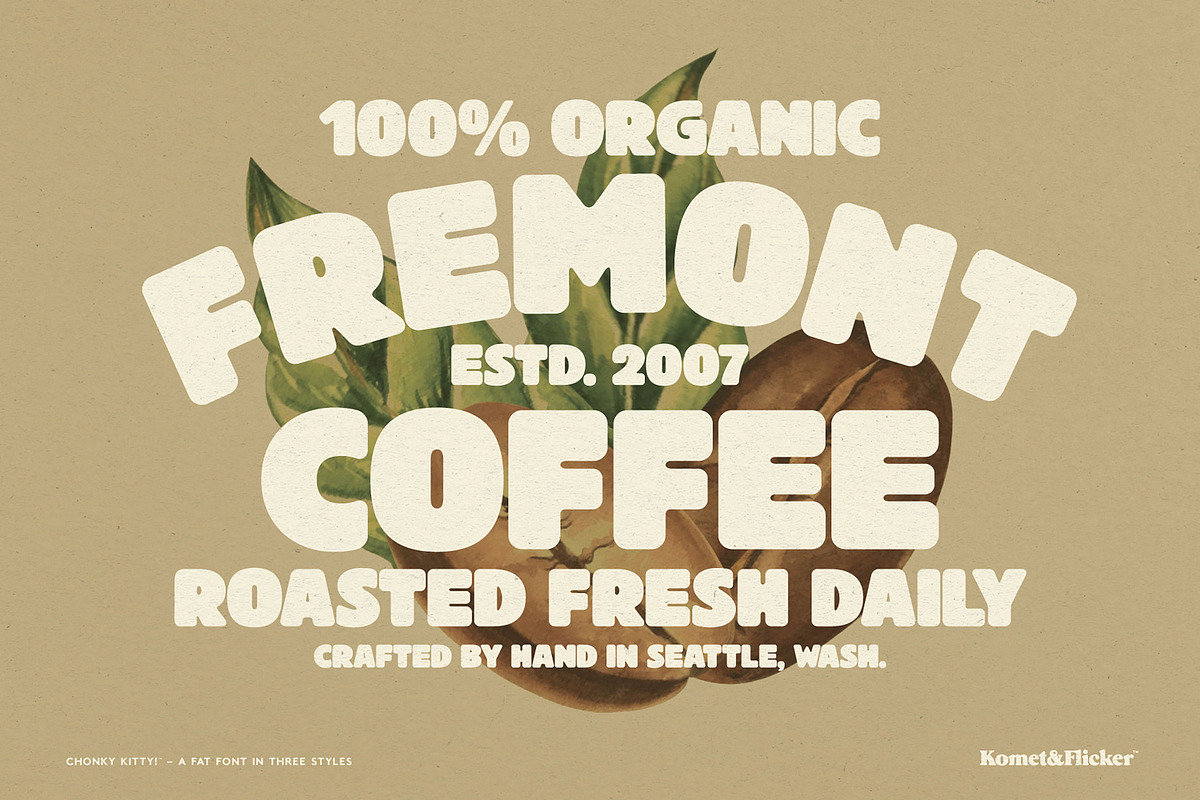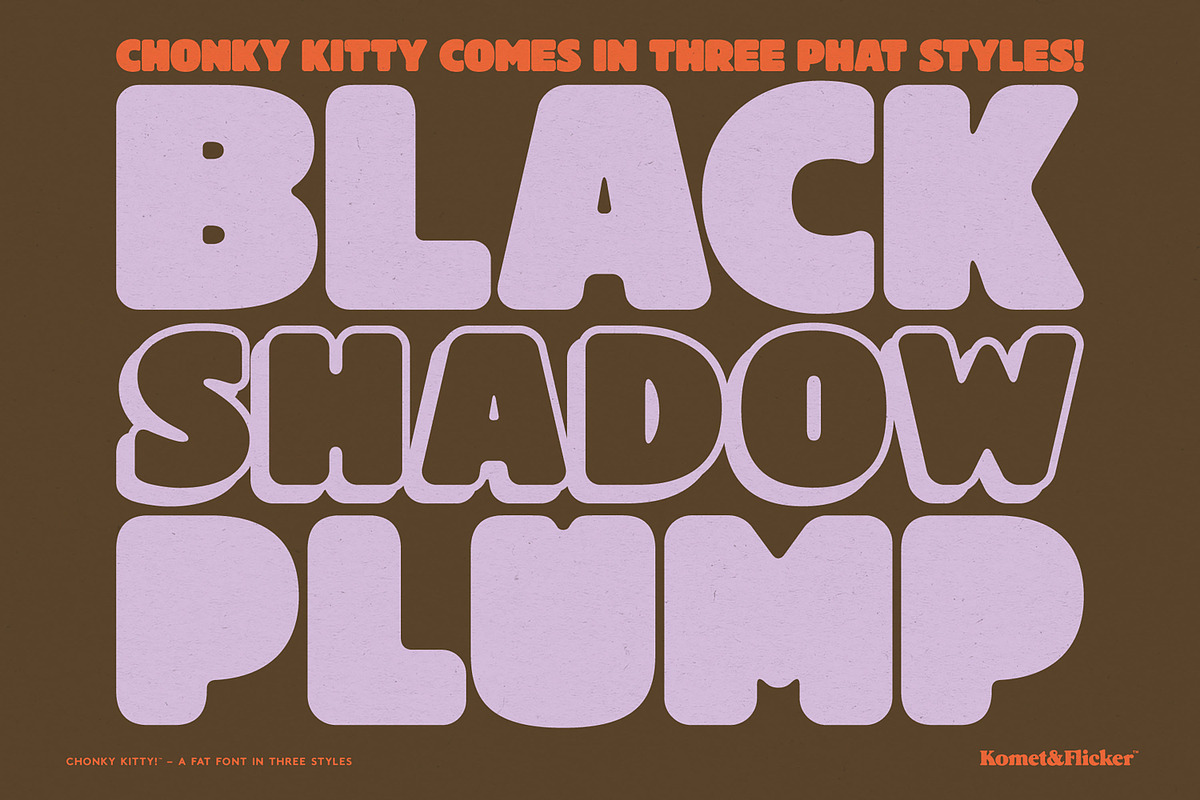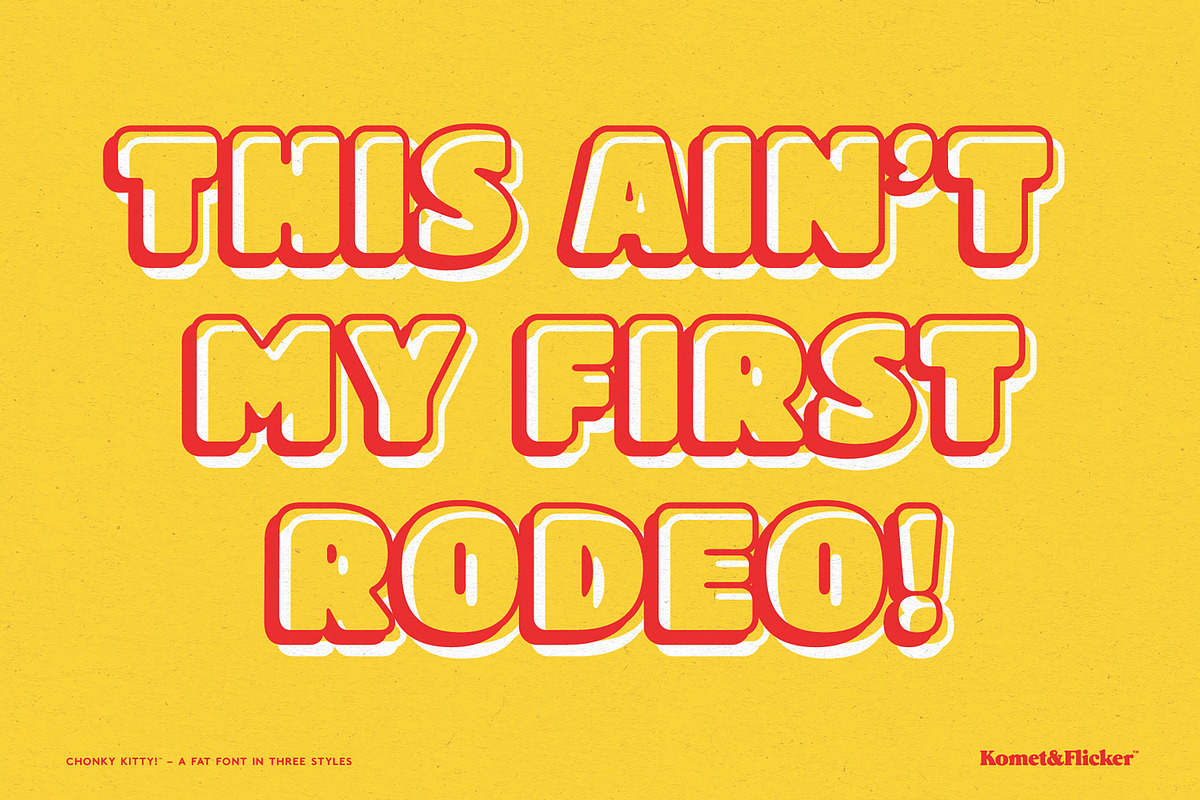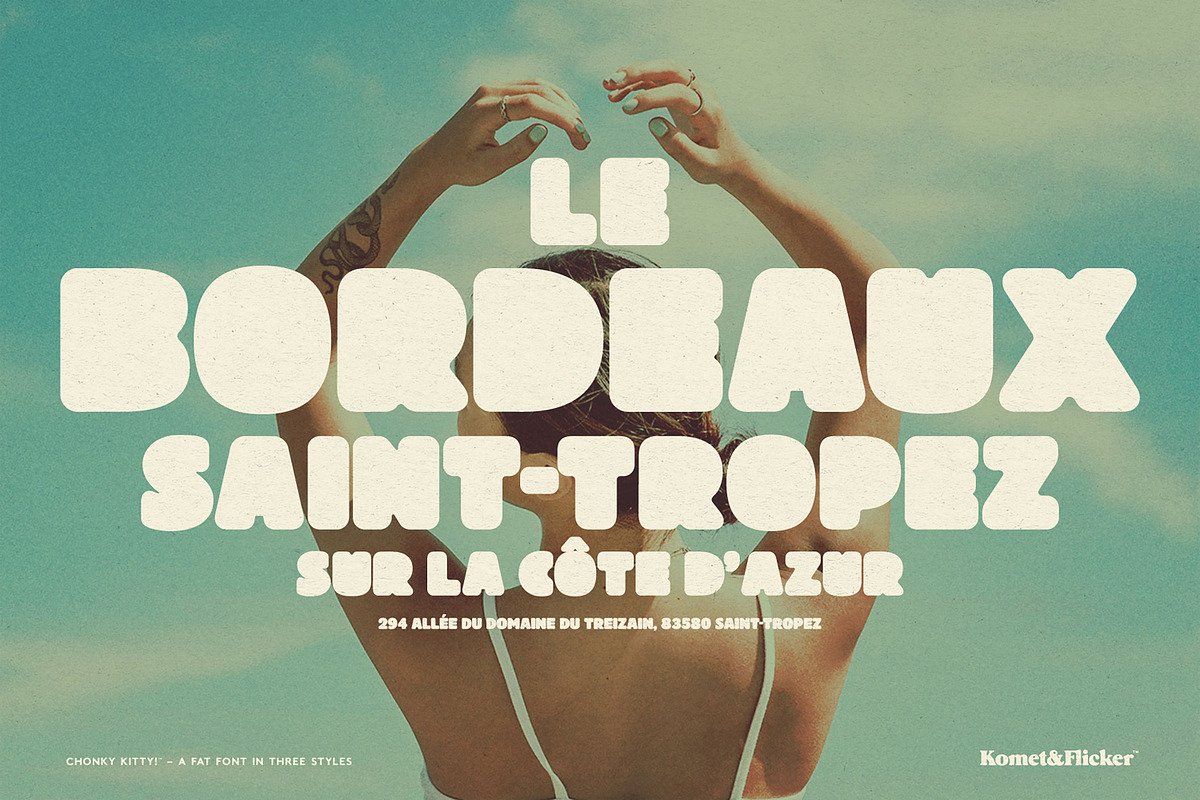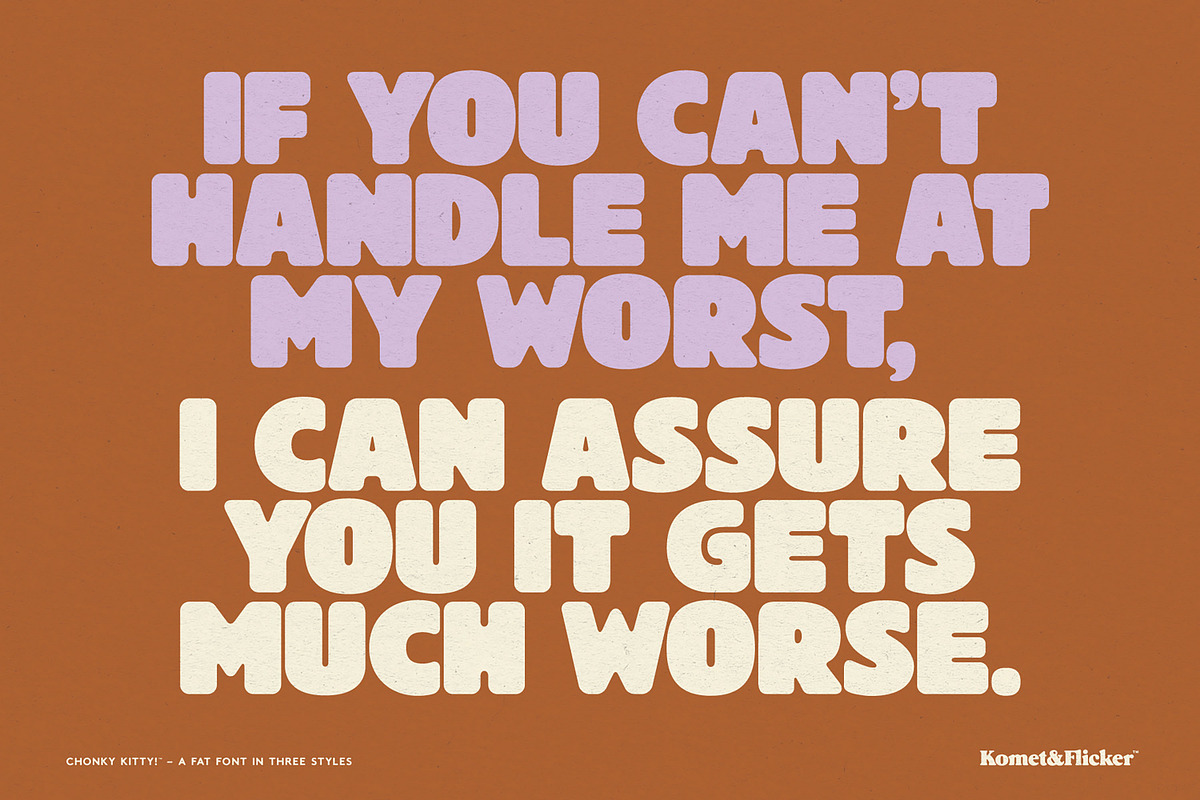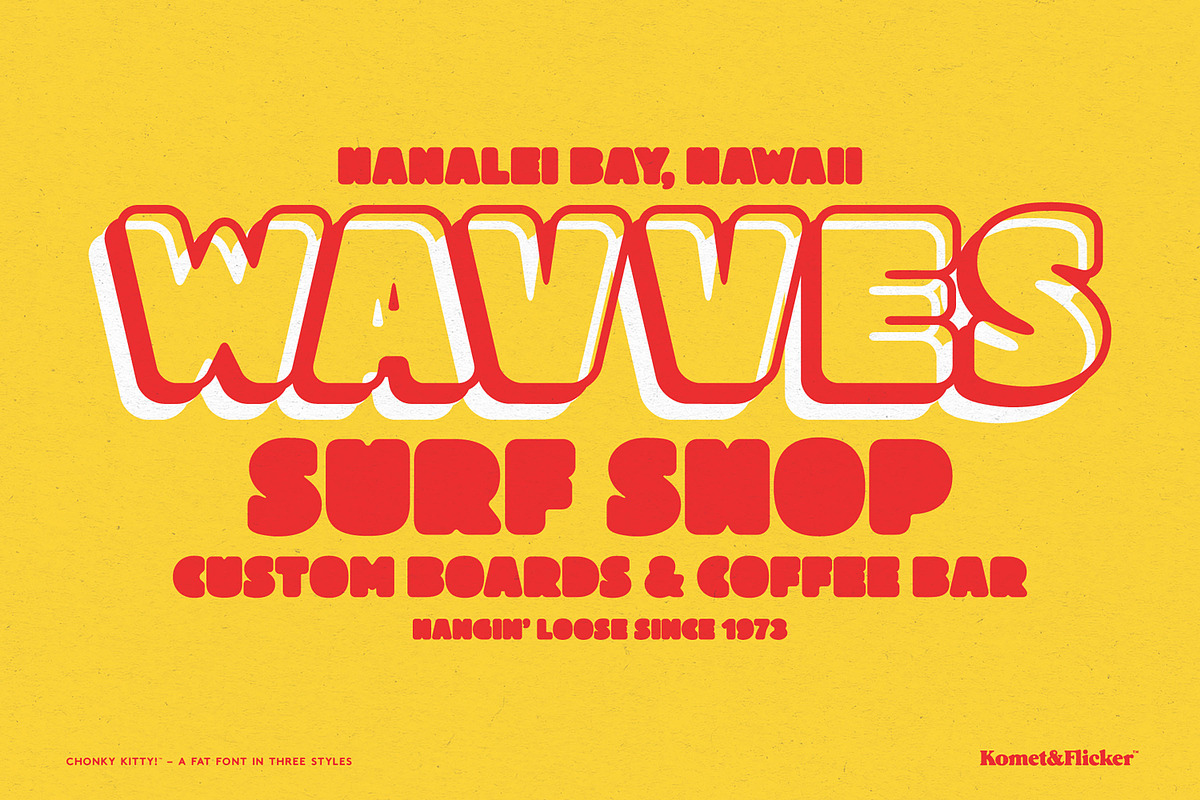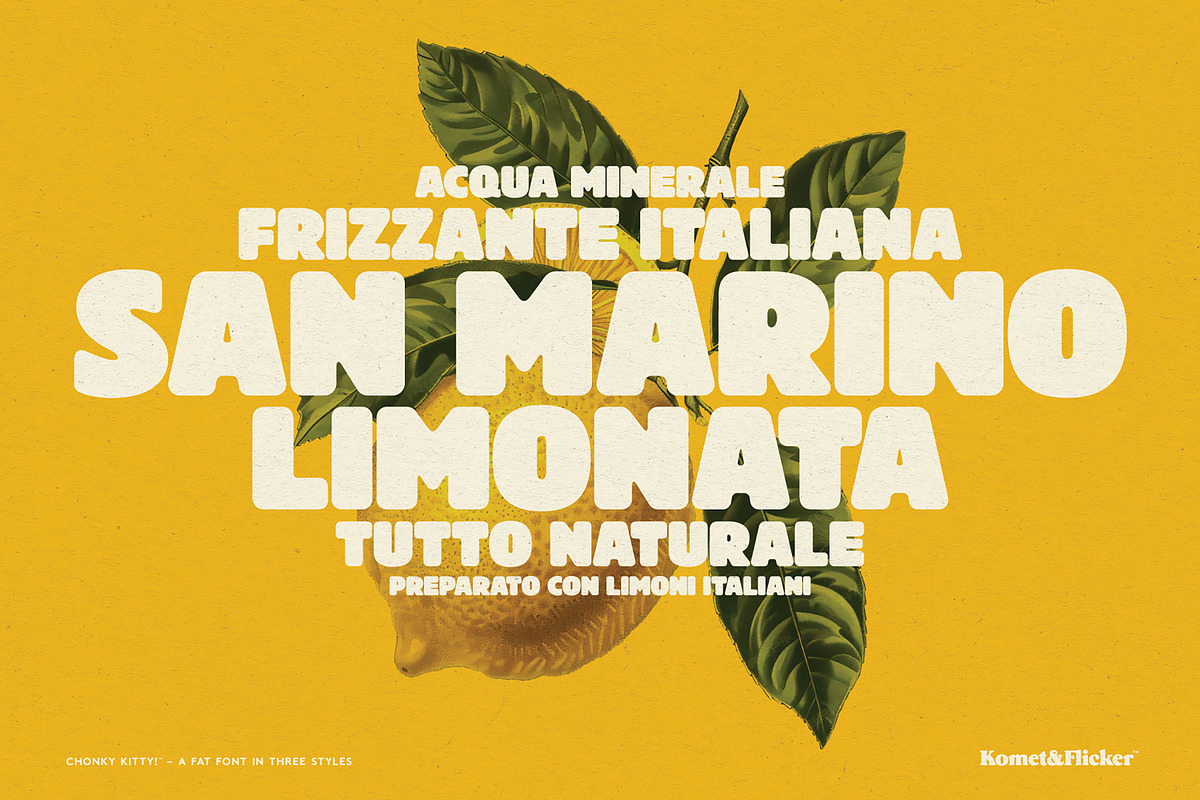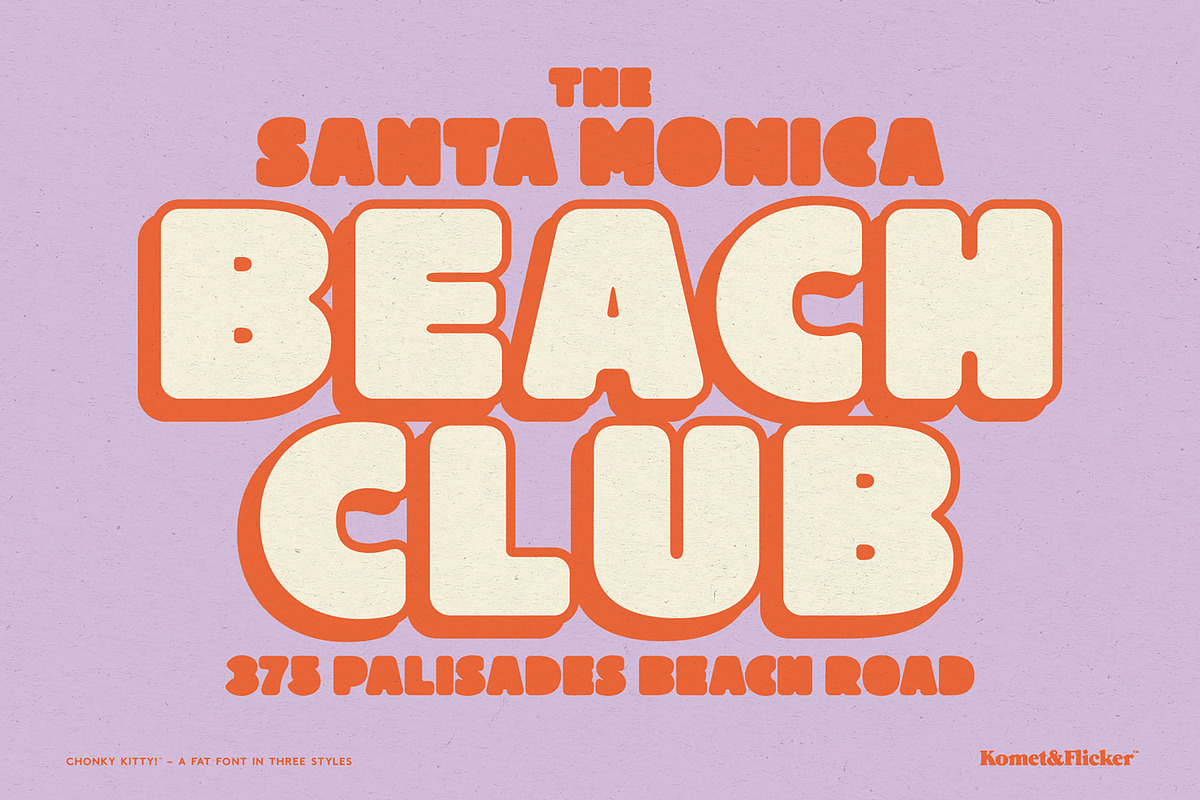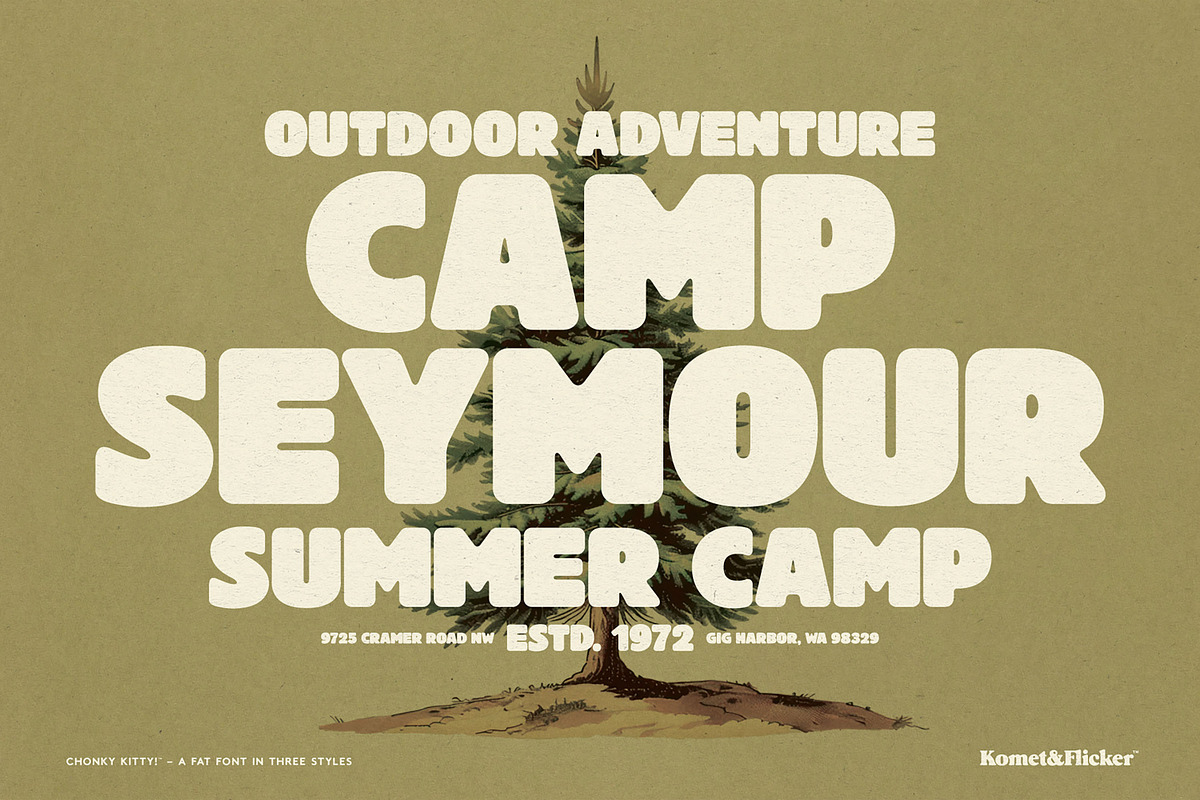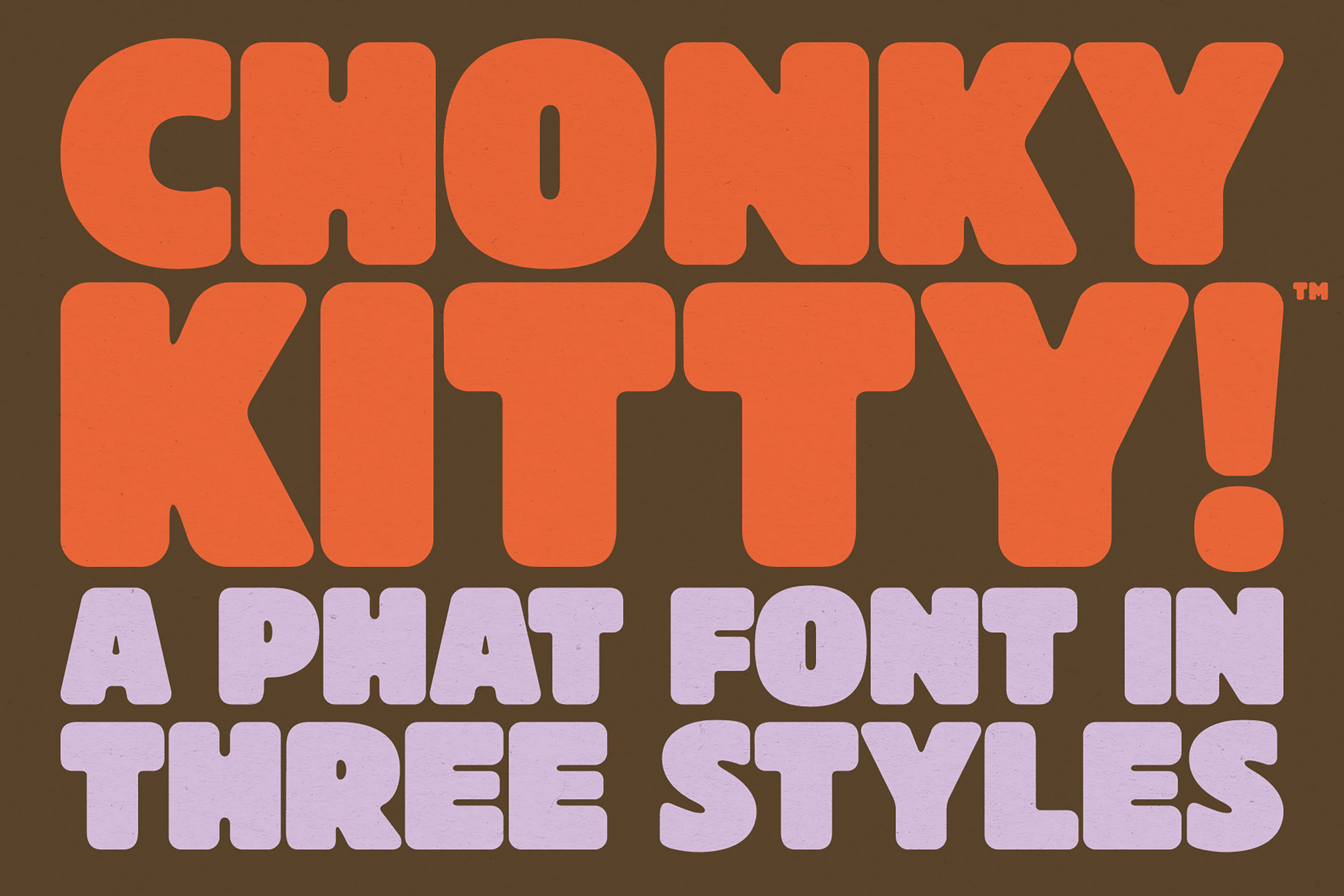
Chonky Kitty! - A Phat Font
Make your words pop with Chonky Kitty!, a fun-loving, bold all-caps font with a friendly, approachable vibe. Designed with thick, rounded letters and a soft, playful feel, this typeface brings warmth and personality to everything from posters and product packaging to social graphics and handmade logos.
Available in three unique styles, the oversized, bubbly shapes of Chonky Kitty! are perfect for designs that need to attract attention. Plus, it comes with select European multilingual characters, making it a great choice for a range of creative projects.
If you're looking for something chunky, cheerful, and full of charm, Chonky Kitty! delivers with style.
THIS FONT COMES IN THREE STYLES
Chonky Kitty! Black
Chonky Kitty! Black Shadow
Chonky Kitty! Black Plump
THIS FONT INCLUDES
Full A-Z uppercase basic latin characters
Select European specific characters
Numbers, punctuation, and select symbols